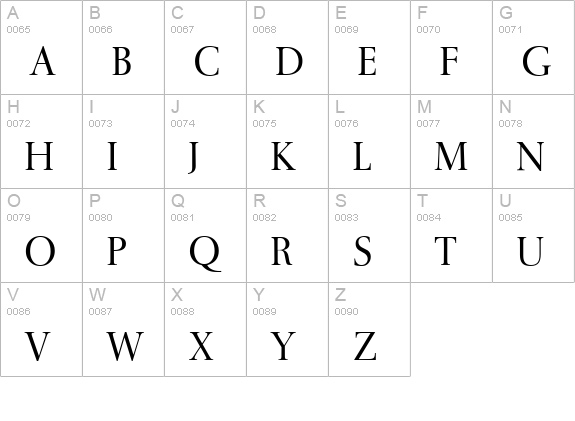
I772-Roman-Regular Font Details
I772-Roman-Regular is the standard, neutral variant in the I772 typeface family \xE2\x80\x94 well suited to general body text, paragraphs, and standard typographic work.
The I772-Roman-Regular font is a classic and elegant typeface that exudes sophistication and timelessness. With its clean lines and balanced proportions, this font is perfect for a wide range of design projects, from branding to editorial layouts. Its versatile nature allows it to be used in both headings and body text, making it a valuable addition to any designer's toolkit. What sets the I772-Roman-Regular font apart is not only its aesthetic appeal but also the fact that it is available for free download at FontsMarket.com. This means that you can access this high-quality font without any cost, making it a budget-friendly option for your design needs. Don't miss out on the opportunity to enhance your projects with the I772-Roman-Regular font – download it today and elevate your designs to the next level.